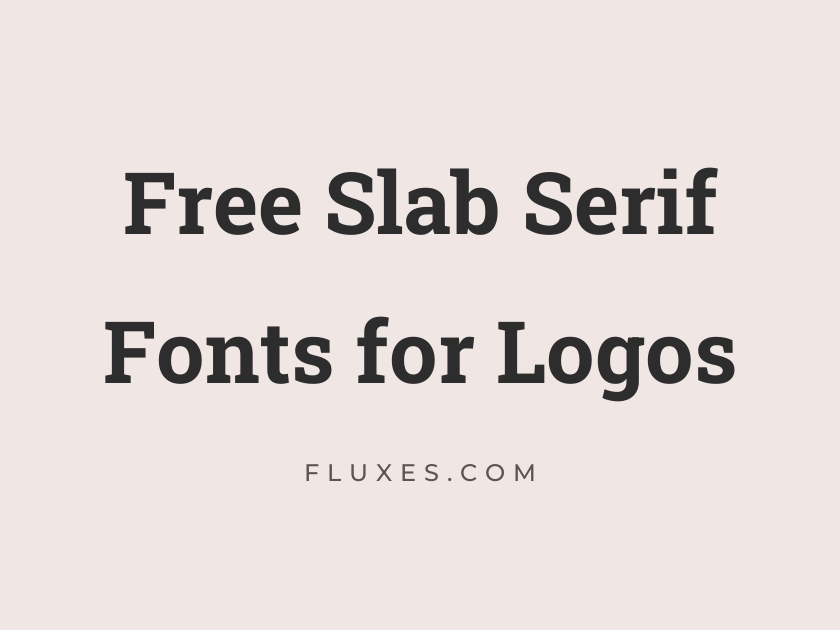
47 Best Free Slab Serif Fonts for Logos
Slab serif fonts have a straightforward appeal for logo design: thick, blocky serifs that read clearly at any size, project confidence, and hold up on everything from a business card to a billboard. Whether you are building a wordmark for a coffee roaster, a fintech app, or a construction company, a well-chosen slab serif gives a brand instant weight and personality without relying on tricks or ornamentation.
The free slab serif fonts on Google Fonts cover an enormous range, from clean geometric workhorses to rugged western display faces, and picking the right one often comes down to matching the letterforms to the tone of the brand. Some of these are built for long-form text and can flex into logo use at larger weights, while others were designed purely as display faces for headlines, badges, and marks. Knowing which is which will save you from a logo that looks great in a mockup but falls apart at favicon size.
1. Roboto Slab
Bold letterforms built for modern brand identities
Roboto Slab is the safe, dependable choice for a reason. It shares Roboto’s proportions and spacing, so it slots easily into a tech or SaaS identity that already leans on Roboto for UI text, giving the logo a family resemblance to the product itself. At heavier weights the slabs turn thick and confident without feeling clunky, which is why it shows up constantly in startup wordmarks and app icons.
2. Zilla Slab
Sturdy slab serifs for confident logo marks
Designed by Mozilla for the Firefox OS project, Zilla Slab has a slightly humanist warmth that keeps it from feeling corporate. It reads well at both display and text sizes, so a logotype set in Zilla Slab can double as the headline font across a website without the brand feeling disjointed.
3. Bitter
Warm slab serifs for editorial brand identities
Bitter was built for on-screen reading, and that heritage shows in its generous x-height and sturdy strokes. In a logo it feels literary and grounded rather than aggressive, making it a strong fit for publishers, bookshops, and any brand that wants to signal substance over flash. Its bold weight holds up cleanly even when scaled down to a browser tab icon.
4. Arvo
Geometric slabs perfect for tech startup logos
Arvo’s slab serifs are built on near-perfect geometric shapes, giving it a mechanical, confident feel that suits tech and engineering brands. It has been a go-to logo font for years precisely because it looks assured without shouting.
5. Rokkitt
Friendly slab serif for approachable brand marks
Rokkitt softens the usual slab rigidity with rounder curves and a slightly playful rhythm. It works nicely for brands that want the sturdiness of a slab serif but need to feel welcoming rather than industrial, think co-working spaces, children’s products, or community organizations.
6. Aleo
Humanist slab serif for versatile logo systems
Aleo pairs a slab structure with humanist proportions borrowed from its sister font Lato, so it reads as friendly and modern at once. It is a practical pick when a brand needs a slab wordmark that will also perform as body copy in supporting materials.
7. Josefin Slab
Retro geometric slabs for vintage-inspired branding
There is a distinct 1920s geometric personality running through Josefin Slab, all narrow apertures and elegant proportions. It suits boutique, fashion, and design-studio branding that wants a vintage wink without tipping into full pastiche, and it pairs beautifully with its sans-serif sibling Josefin Sans for secondary text.
8. Alfa Slab One
Heavyweight slab serif for bold wordmarks
Alfa Slab One is about as heavy as slab serifs get on Google Fonts, with almost no visible counters at small sizes. It makes a striking short wordmark or initial mark but turns muddy fast in anything longer than a word or two, so keep the logo text brief.
9. Ultra
Extra-bold slab serif for maximum logo impact
Ultra takes the classic Rockwell-style slab and pushes the weight to an extreme, producing letters that feel almost architectural. It is a strong choice for a single bold logotype but needs plenty of breathing room around it to avoid looking cramped.
10. Bevan
Sturdy slab serif for rugged outdoor brands
Bevan has a slightly condensed, workwear feel that suits outdoor gear, breweries, and anything with a rugged, dependable story to tell. Its thick, even strokes give it presence without needing a heavier weight option, since it only comes in one.
11. Sanchez
Balanced slab serif for trustworthy brand logos
Sanchez has a calm, well-mannered structure that reads as trustworthy rather than trendy. It is a solid pick for finance, legal, or professional-services logos that want the gravity of a serif with the clarity of a slab.
12. Crete Round
Rounded slab serif for friendly logo lettering
The rounded terminals on Crete Round soften its slab bones considerably, giving it a friendly, almost conversational tone. It works well for lifestyle and wellness brands that want warmth without drifting into a script or handwritten feel.
13. Bigshot One
Chunky inline slab for retro sports logos
Bigshot One
There is a collegiate, varsity-jacket energy to Bigshot One, with its inline detailing and rounded slab shapes. It suits sports teams, camps, and nostalgic consumer brands looking for a badge-style mark rather than a clean corporate wordmark.
14. Rammetto One
Rounded chunky slab for playful game logos
Rammetto One is bouncy and toy-like, with soft rounded slabs that feel more like candy than concrete. Game studios, kids’ brands, and app icons benefit from its cheerful weight, though it is too playful for anything serious.
15. Podkova
Elegant slab serif for refined brand marks
Podkova
Podkova brings a more refined, slightly condensed slab structure that reads well in both display and smaller supporting text. Its restrained personality makes it a good match for boutique hospitality or artisan food branding that wants sophistication without heaviness.
16. Bree Serif
Casual slab serif for friendly startup logos
Bree Serif
Bree Serif has a rounded, casual warmth borrowed from its sans-serif cousin Bree. It suits friendly, approachable startups and community brands, though its softness means it reads more welcoming than authoritative.
17. Kameron
Sturdy slab serif for confident wordmark logos
Kameron
Kameron pairs solid, upright slabs with a slightly condensed rhythm that makes it economical in tight logo spaces. It has a dependable, institutional feel that suits schools, civic organizations, and heritage brands.
18. Kreon
Clean slab serif for minimal brand headlines
Kreon
Kreon strips slab serif design down to its essentials, favoring clean geometry over decoration. It reads as calm and understated, a good choice for a minimalist brand that still wants the visual weight of a serif logotype.
19. Arbutus Slab
Vintage slab serif for craft brand labels
Arbutus Slab
Arbutus Slab has a slightly worn, hand-set letterpress quality that suits craft breweries, small-batch food labels, and vintage-leaning packaging. Its narrow proportions make it efficient for label copy as well as a headline logotype.
20. Special Elite
Typewriter slab for authentic vintage brand logos
Modeled on manual typewriter type, Special Elite brings genuine texture and imperfection to a logo. It works wonders for detective agencies, vintage stationery, journalism-themed brands, or anything wanting a document-authentic, retro feel, though its irregular strokes are strictly a display device rather than a workhorse text font.
21. Courier Prime
Classic monospace slab for editorial brand logos
Courier Prime
Courier Prime updates the familiar typewriter monospace with cleaner, more legible letterforms while keeping its slab serif DNA intact. Screenwriters and publishers already trust it for manuscripts, and that same credibility carries over nicely into logos for writing, editing, or media-adjacent brands.
22. Coustard
Heavy rounded slab for confident bakery logos
Coustard
Coustard is thick, round, and a little bit indulgent looking, which makes it a natural fit for bakeries, cafes, and comfort-food branding. Its heaviest weight practically begs to be set in a single warm color for a badge-style logo.
• Styles: 2 weights (Regular, Black)
23. Trykker
Sturdy slab serif for dependable service brands
Trykker
Trykker keeps its slab serifs practical and unfussy, with a steady rhythm that reads as reliable rather than exciting. It is well suited to trade and service businesses, plumbers, contractors, repair shops, where trust matters more than trend.
24. Suez One
Bold geometric slab for striking brand marks
Suez One
Suez One combines a geometric sans-like simplicity with just enough slab weight to give it authority. It is compact and even-toned, making it a strong option for a short, punchy wordmark that needs to work at both large and small sizes.
25. Vast Shadow
Dimensional slab serif for vintage badge logos
The built-in shadow effect on Vast Shadow gives it an immediate dimensional, engraved quality without any extra design work. It is tailor-made for vintage badge and seal-style logos, saloons, barbershops, and heritage brands that want a sense of permanence baked into the type itself.
26. Snippet
Condensed vintage slab for sale-sign style logos
Snippet
Snippet borrows its energy from hand-painted sale signage, all condensed proportions and confident weight. It suits retail, markets, and anything wanting a bit of vintage commercial hustle in its branding.
27. Rye
Western slab serif for saloon-style brand logos
Rye leans hard into old-west signage, with bracketed serifs and a wide, theatrical stance. It is an obvious pick for barbecue joints, saloons, and western-themed brands, and a poor one for anything wanting to feel contemporary.
28. Sancreek
Rugged western slab for frontier brand logos
Sancreek has a rough-hewn, frontier-town texture that reads as weathered and rugged rather than polished. It pairs naturally with leather, denim, and outdoor heritage brands looking for authenticity over refinement.
29. Bowlby One
Bold rounded slab for playful cartoon logos
Bowlby One is thick, rounded, and cheerful, closer to a cartoon lettering style than a traditional slab, but its heavy squared serifs earn it a place here. It is a favorite for children’s brands, party businesses, and anything that wants maximum friendliness in a single bold word.
30. Nixie One
Retro slab serif for mid-century brand logos
Nixie One
There is a retro-futurist, mid-century diner quality to Nixie One, with slightly quirky proportions that feel plucked from an old sign. It suits diners, record shops, and brands chasing a nostalgic, analog aesthetic.
31. Alike
Balanced slab serif for confident editorial logos
Alike
Alike keeps its slab serifs measured and even, giving it a composed, editorial feel that works for publications, agencies, and consultancies. It is understated enough to also carry supporting text without competing with the logo itself.
32. Alike Angular
Angular slab serif for sharp modern logos
Alike Angular
This angular variant of Alike swaps the softer curves for sharper, more geometric cuts, giving it a slightly more modern, technical edge. It suits brands wanting the same editorial credibility as Alike but with a crisper, more contemporary silhouette.
33. Cousine
Monospace slab for technical brand identities
Cousine
Cousine is a metrically compatible alternative to Courier New, and its even, monospaced slabs give a logo an engineering, technical, or coding feel. It is a natural fit for developer tools, data brands, and anything wanting to signal precision.
34. Martel
Sturdy slab serif for global brand systems
Martel
Martel was built with an unusually wide weight range and strong multilingual support, making it a practical choice for brands operating across several languages or scripts. Its slabs are sturdy and even without feeling heavy-handed, which lets it scale from a logotype down into supporting headlines.
• Styles: 7 weights (Extra-Light to Black)
35. Fraunces
Soft slab serif for warm boutique branding
Fraunces is one of the more expressive entries here, with old-style contrast, wonky optical details, and slab-like serifs that thicken beautifully at display sizes. It has become a favorite in independent branding, boutique food packaging, and editorial identities that want warmth and character rather than corporate polish. Because it carries a variable font with optical size and softness axes, a single family can flex from a delicate wordmark to a chunky, confident logo depending on the settings.
36. Besley
Refined slab serif for confident headline logos
Besley
Designed as a display companion to the popular text serif Merriweather, Besley brings a slightly more traditional, refined slab structure to headline and logo use. It suits law firms, publishers, and heritage brands wanting gravity without resorting to an overly heavy slab.
37. Stardos Stencil
Stencil slab serif for industrial brand marks
The stencil cut of Stardos Stencil suits warehouses, construction, logistics, and any brand wanting an industrial, stamped-crate aesthetic. It reads as rugged and utilitarian in a way few other slab serifs manage convincingly.
38. Chonburi
Hand-painted slab for playful signage-style logos
Chonburi
Chonburi takes its cues from Thai sign painting, and that hand-crafted, slightly bouncy energy translates well into Latin logotypes for restaurants, markets, and street-food brands. It has a lot of personality, which means it works best as the star of a simple, uncluttered logo.
39. BioRhyme
Wide slab serif for statement brand headlines
BioRhyme
BioRhyme was designed specifically with the web in mind, and its wide, generous letterforms make for a confident, statement-making logotype. It holds its shape well even when set large across a hero banner or storefront sign.
40. BioRhyme Expanded
Extra-wide slab serif for bold wordmark logos
BioRhyme Expanded
The expanded cut pushes BioRhyme’s already generous proportions even further, producing a wordmark that commands attention from a distance. It is worth considering for signage-heavy brands where the logo needs to read clearly at speed, on a storefront or a delivery van rather than a business card.
• Styles: 5 weights (Extra-Light to Extra-Bold)
41. Trirong
Versatile slab serif for multilingual brand systems
Trirong
Trirong offers an unusually wide range of weights alongside solid Thai and Latin support, making it a flexible option for brands that need consistent slab serif branding across multiple languages. Its even, unfussy letterforms keep it from feeling gimmicky at any weight.
42. Slabo 27px
Sturdy text slab for detailed logo taglines
Slabo 27px
Slabo was engineered for a very specific job, rendering cleanly at 27 pixels on screen, so it earns its place here more as a tagline or supporting-text companion than a display logotype. Pair it beneath a bolder display slab for a logo lockup that stays legible even in a browser favicon.
43. Zilla Slab Highlight
Textured slab serif for handcrafted brand logos
Zilla Slab Highlight
This decorative companion to Zilla Slab adds a hand-inked, layered texture to each letter, instantly giving a logo a crafted, artisanal feel. It is best used sparingly, as a single word or initial mark, since the texture gets busy in longer text.
44. Fenix
Distinctive slab serif for editorial-style brand marks
Fenix
Fenix has an unusual, slightly quirky drop-cap heritage that gives it real character in a logotype, particularly for editorial, literary, or design-forward brands. It is distinctive enough to be memorable but restrained enough not to overwhelm a simple wordmark.
45. Bungee Inline
Urban slab serif for energetic street brand logos
Bungee Inline carries the bold, sign-painted energy of urban typography, with an inline treatment that gives it extra depth on a badge or emblem. It suits streetwear, music, and youth-oriented brands looking for energy over elegance.
46. Kavoon
Brush-slab hybrid for expressive playful logos
Kavoon
Kavoon blends thick slab weight with a loose, brush-drawn feel, landing somewhere between a slab serif and hand lettering. It is a niche choice best reserved for playful, expressive brands willing to trade formality for personality.
47. Rakkas
Bold decorative slab for eye-catching logo type
Rakkas
Rakkas brings thick, confident strokes and a decorative flair that draws the eye immediately, making it useful for a single striking word in a logo. Its heavy personality means it works best alone, without competing display type nearby.
• Language support: Latin, Latin Extended, Arabic
Pairing and Using Slab Serif Fonts in Logo Design
Most slab serifs are strong enough to stand alone as a logotype, so the safest pairing strategy is to keep supporting text in a simple, neutral sans serif or a lighter-weight member of the same family.
Test every slab serif logo at small sizes early. Heavier display options like Alfa Slab One or Ultra look fantastic large but can clog up at favicon or app-icon scale.
For multi-word logotypes, consider a condensed or expanded option such as Kameron or BioRhyme Expanded, since standard slab proportions can run wide.
Decorative options like Vast Shadow, Snippet, or Rye work best as a single accent word rather than a full company name, letting the personality of the letterforms do the work without overwhelming the mark.
Slab serifs remain one of the most dependable routes to a logo that feels both bold and trustworthy, and the free options on Google Fonts now cover nearly every tone a brand could need, from clean and corporate to weathered and western. Downloading a handful to test side by side against your brand name is the fastest way to see which slab actually earns its place in the final mark.